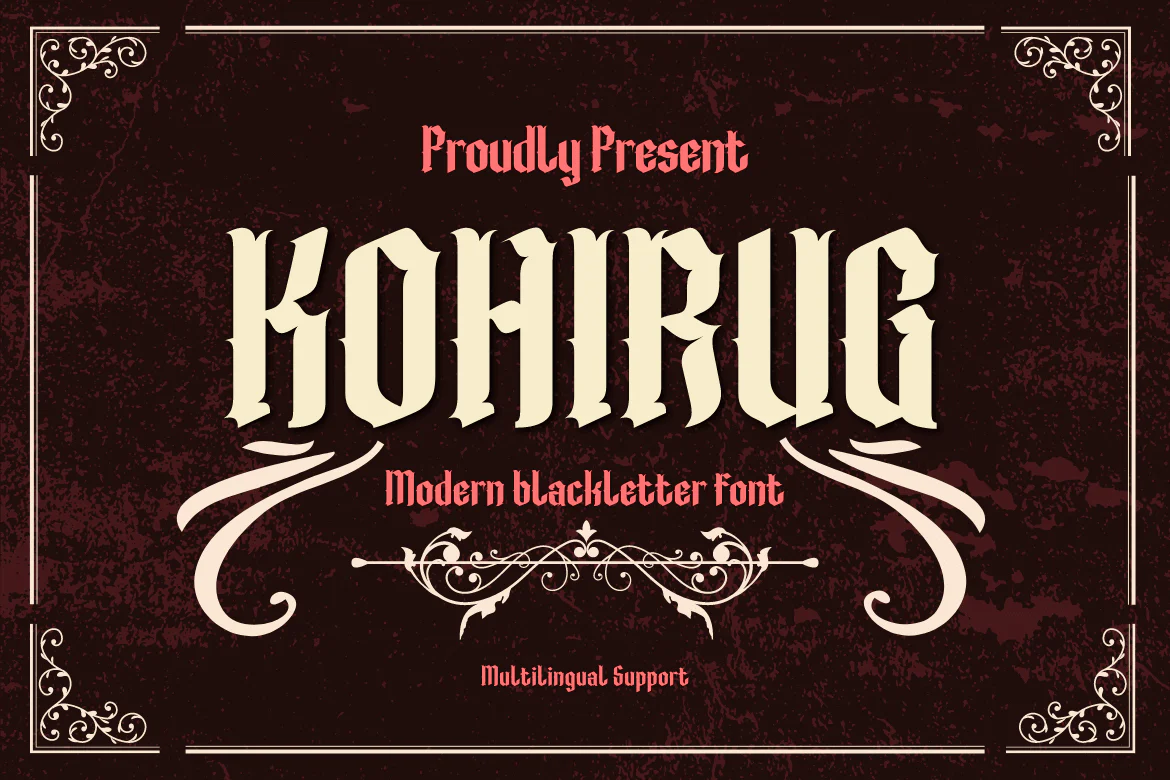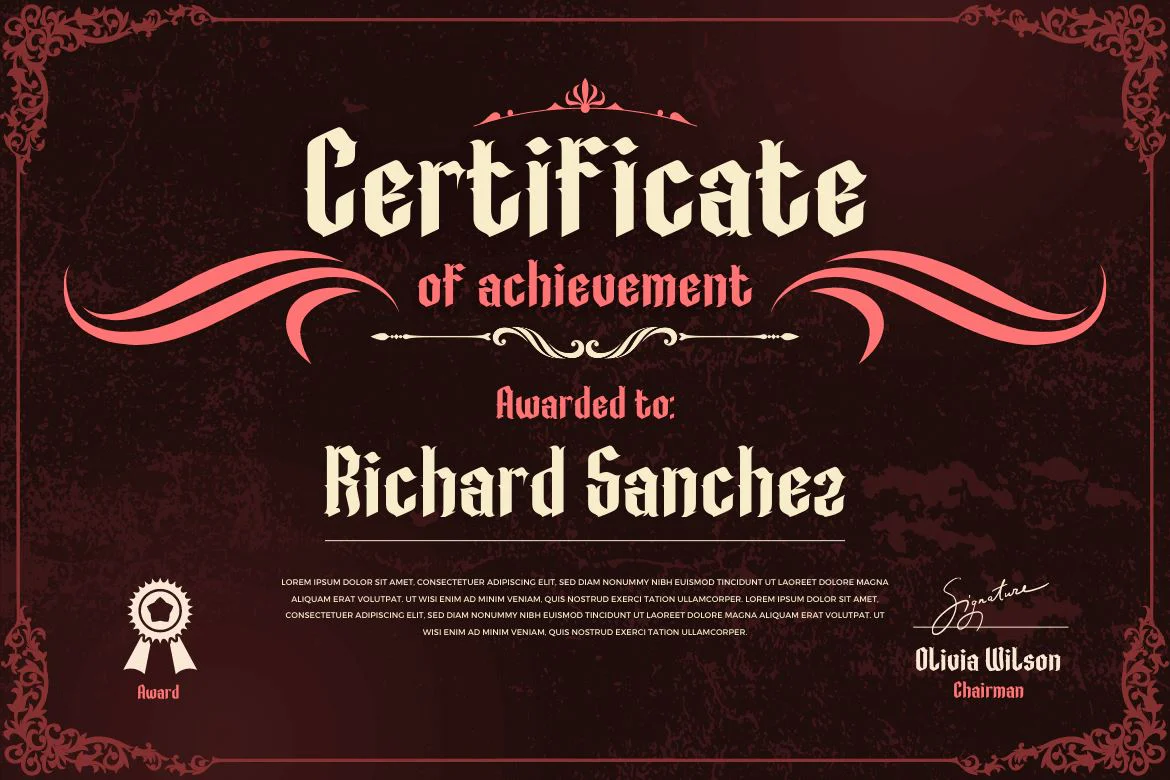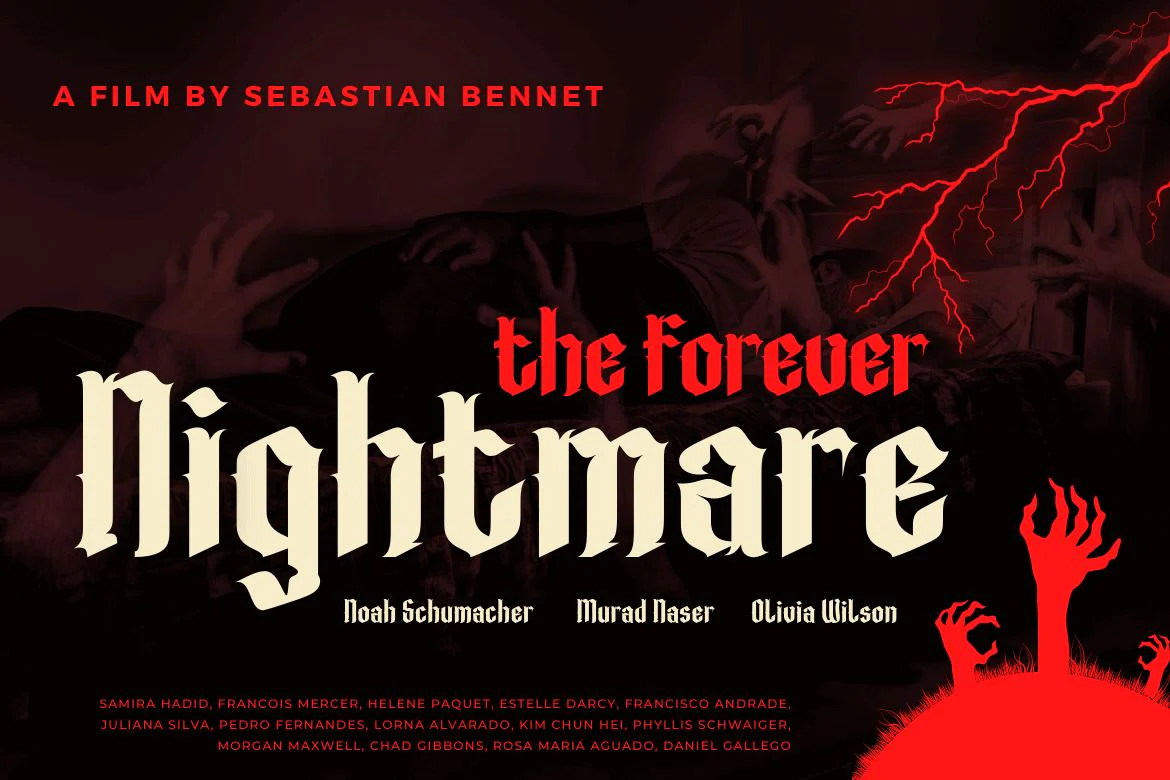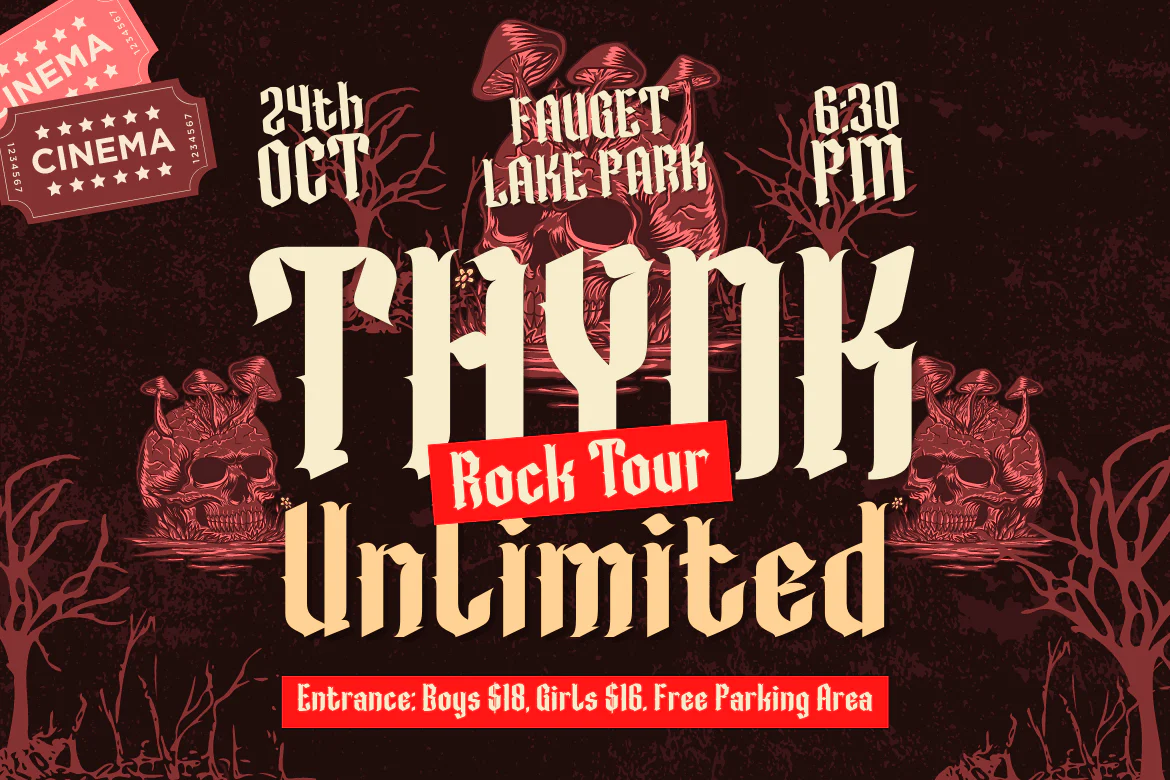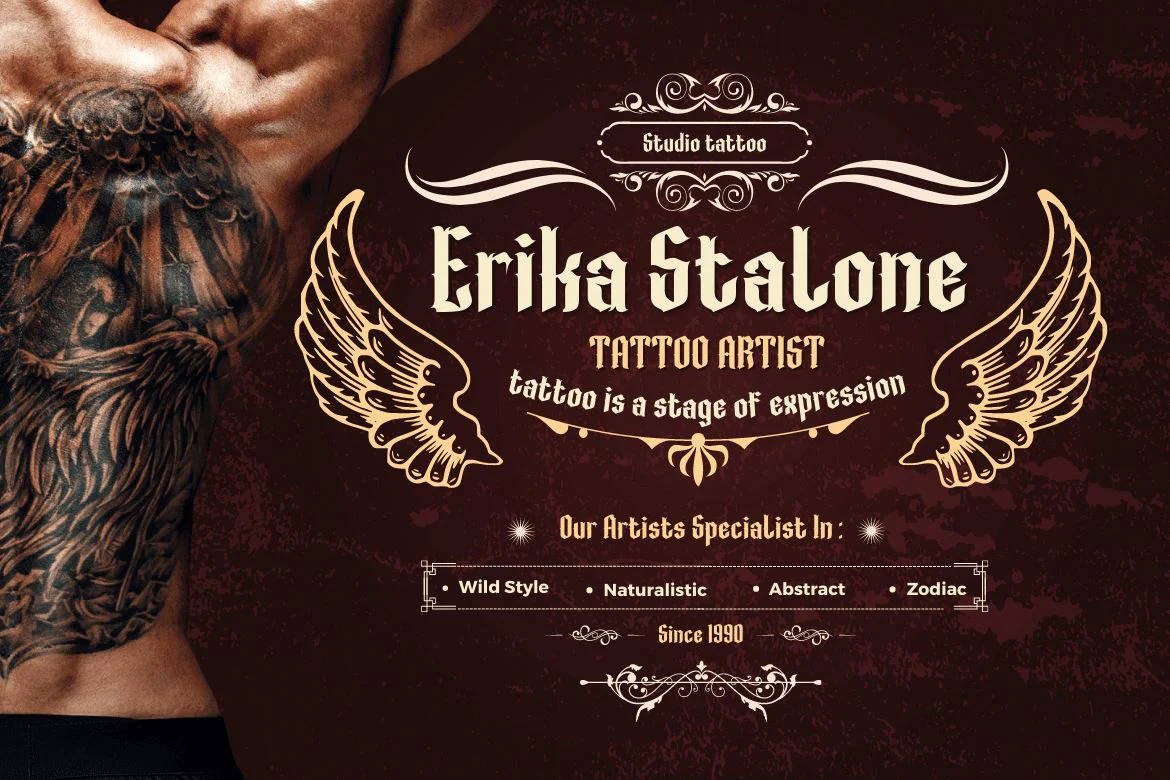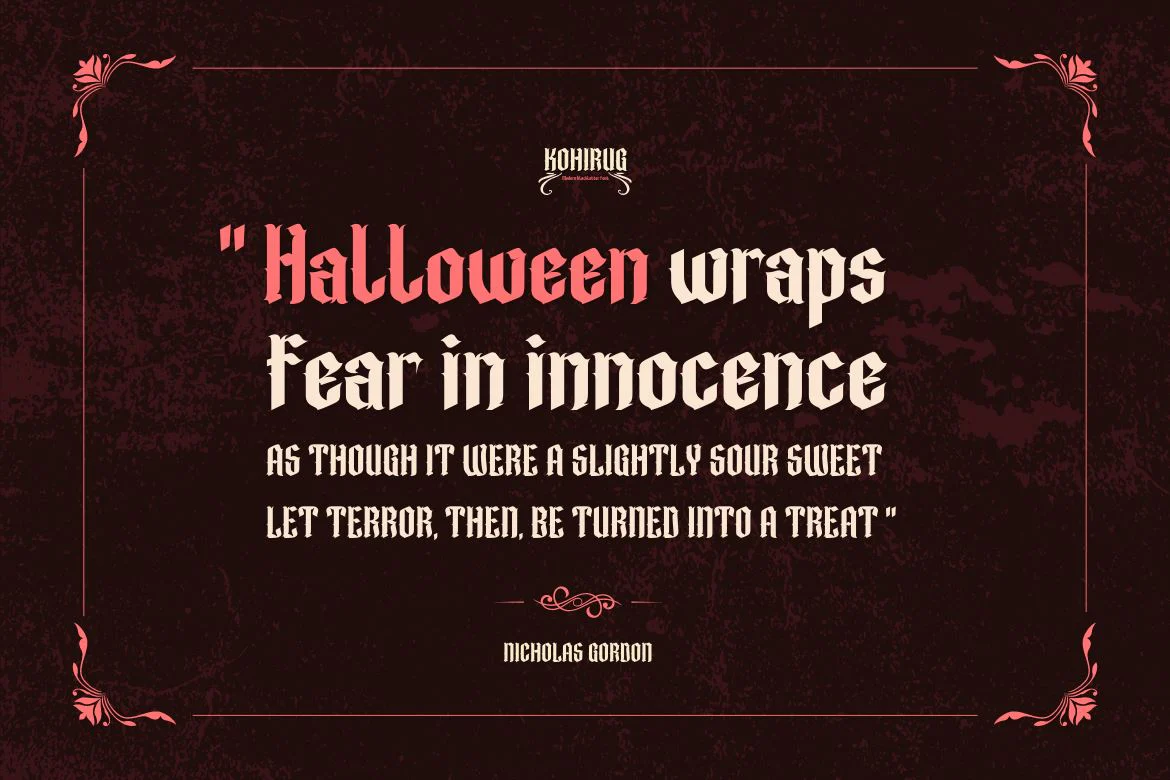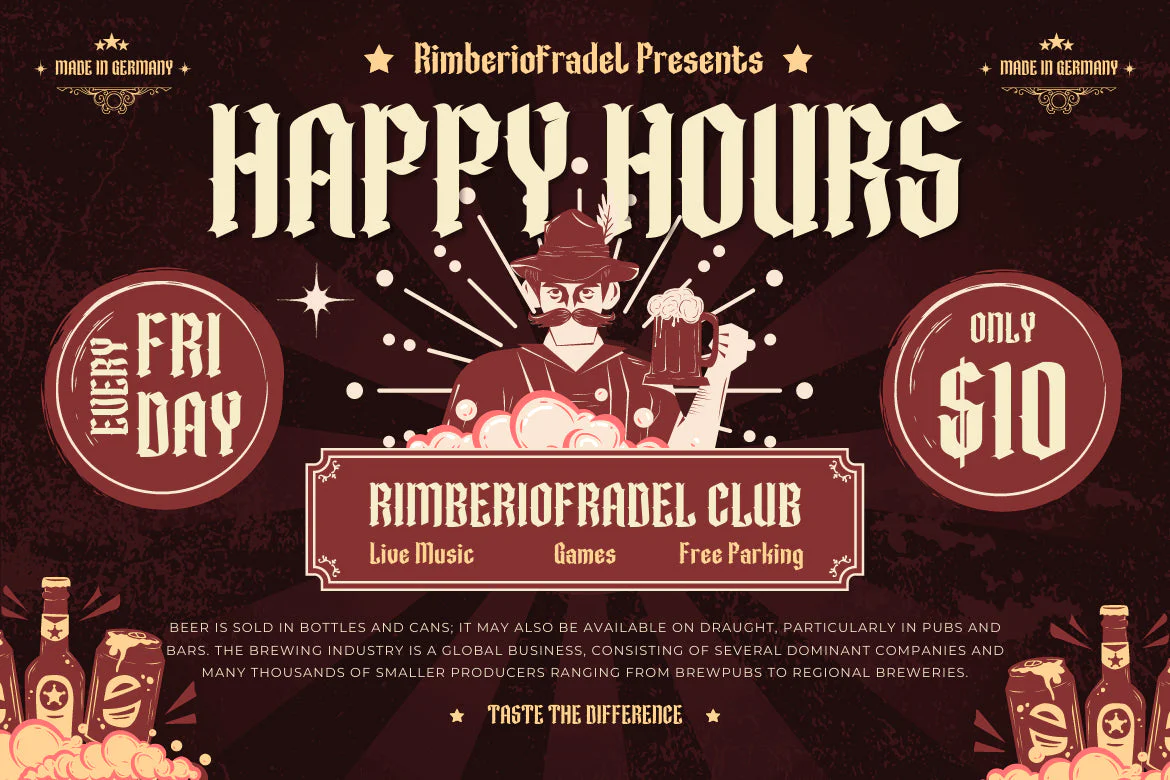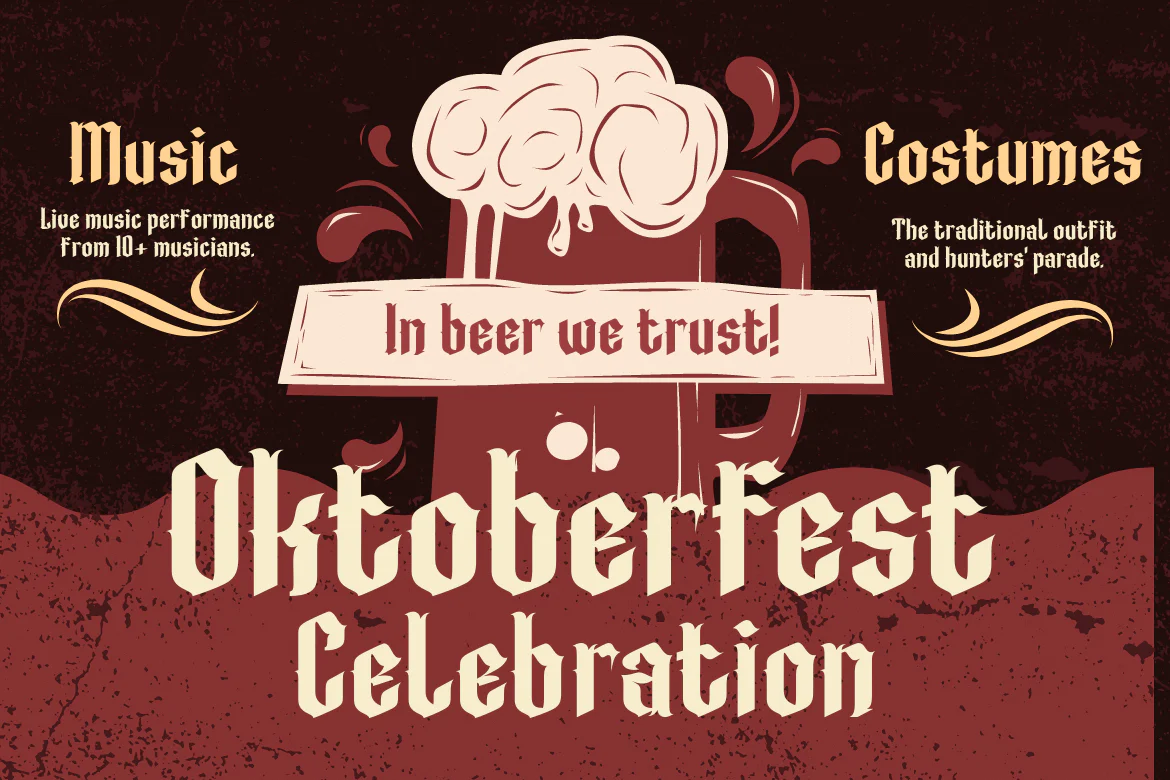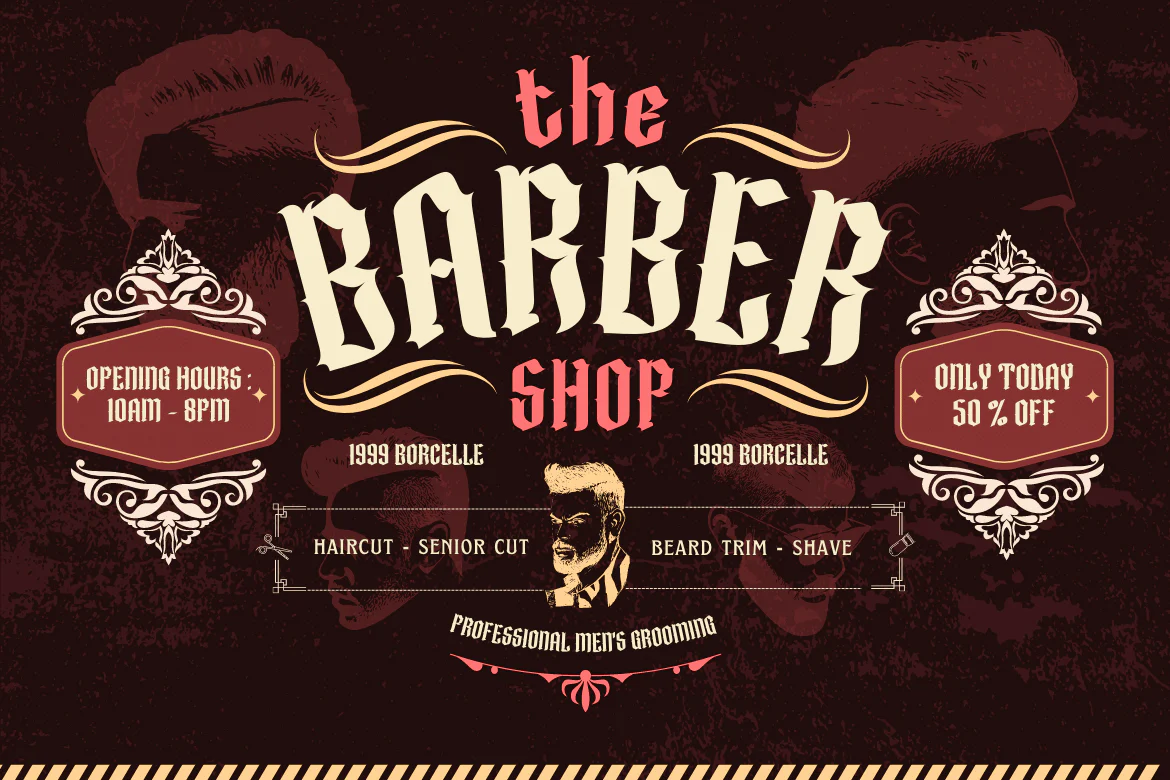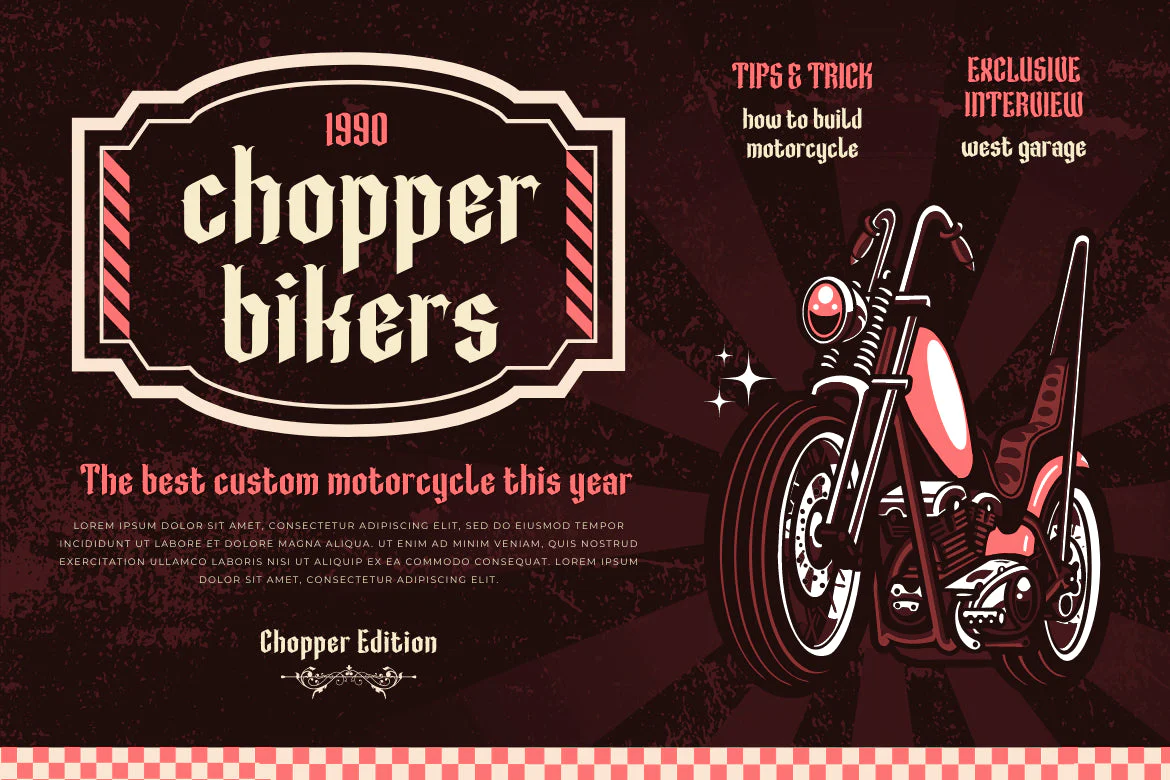
KOHIRUG Blackletter Font
Looking for a font that exudes style and elegance? Look beyond the KOHIRUG Blackletter font. This font evokes a strong, confident personality with striking details on each side of the lettering. Whether you’re creating a vintage-inspired project or want to add a bold classic look to your visuals, this font is a perfect choice.